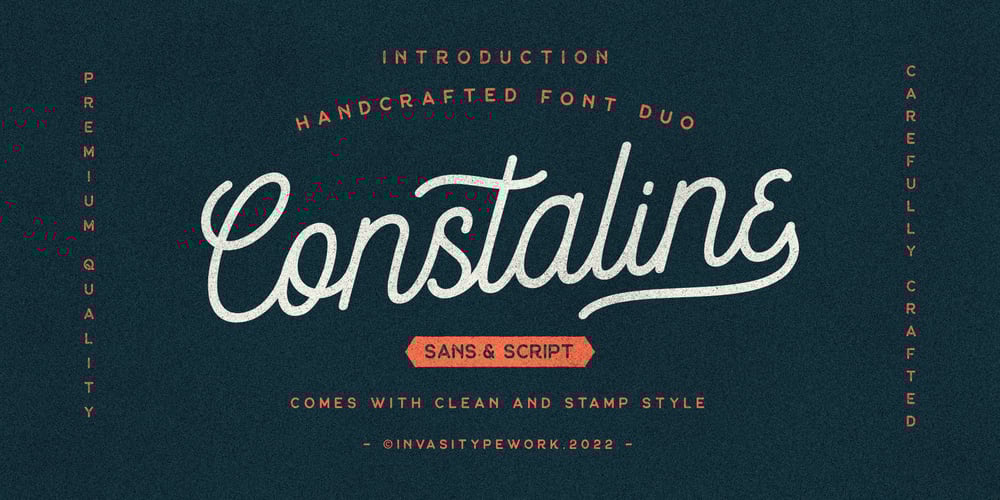
Constaline Script
Constaline Script font
Constaline Script Font Family was designed by Gha Arizal and published by Invasi Studio. Constaline Script contains 4 styles and family package options. Constaline is a super versatile pairing font monoline script and sans typeface with tons of alternate decorative characters. The Constaline font duo has a Rough Grunge texture and a clean style. Script Regular, Script Stamp, Sans Regular, and Sans Stamp are the four varieties available. They can be used for a wide variety of purposes. This font has been carefully hand-drawn to make sure its characters look consistent. Constaline font duo is suitable for logotype, badge, emblem, clothing design, signage, posters, packaging, and much more! Features: Uppercase & Lowercase Numerals & Punctuation Alternates and Ligatures Multilanguage Supports 60+ Latin based languages